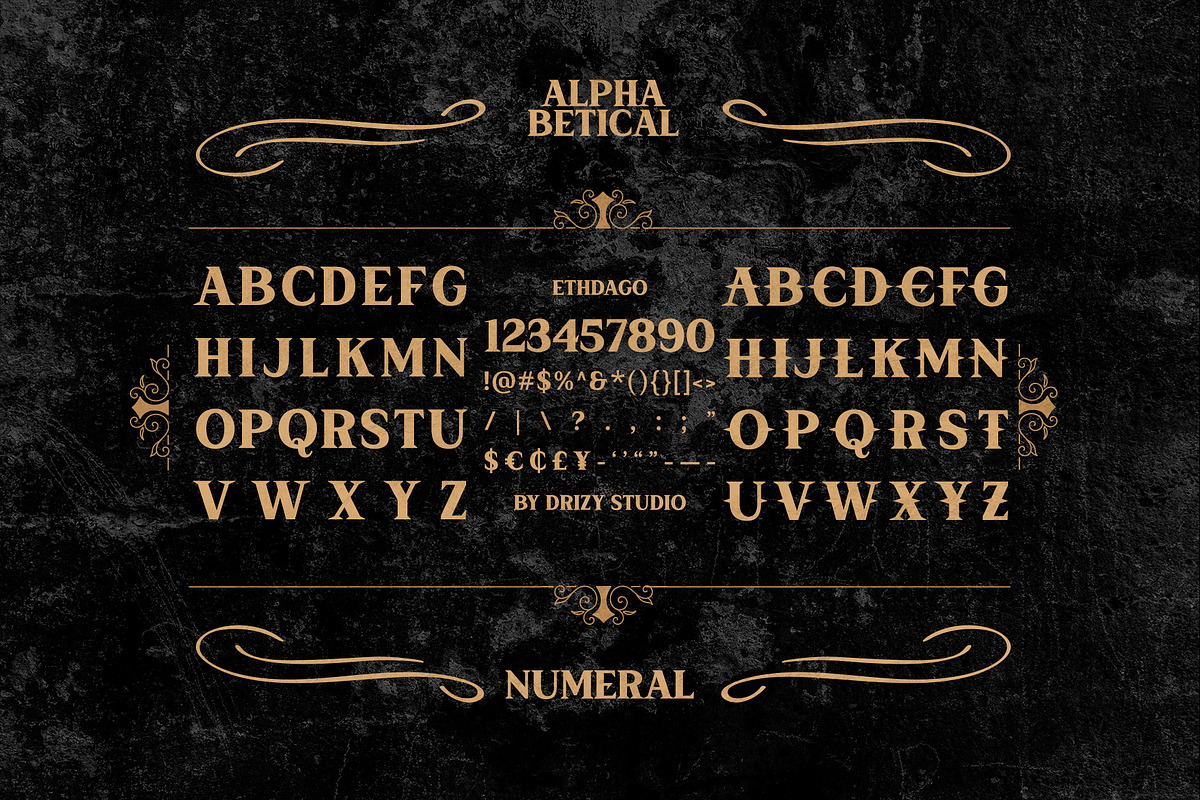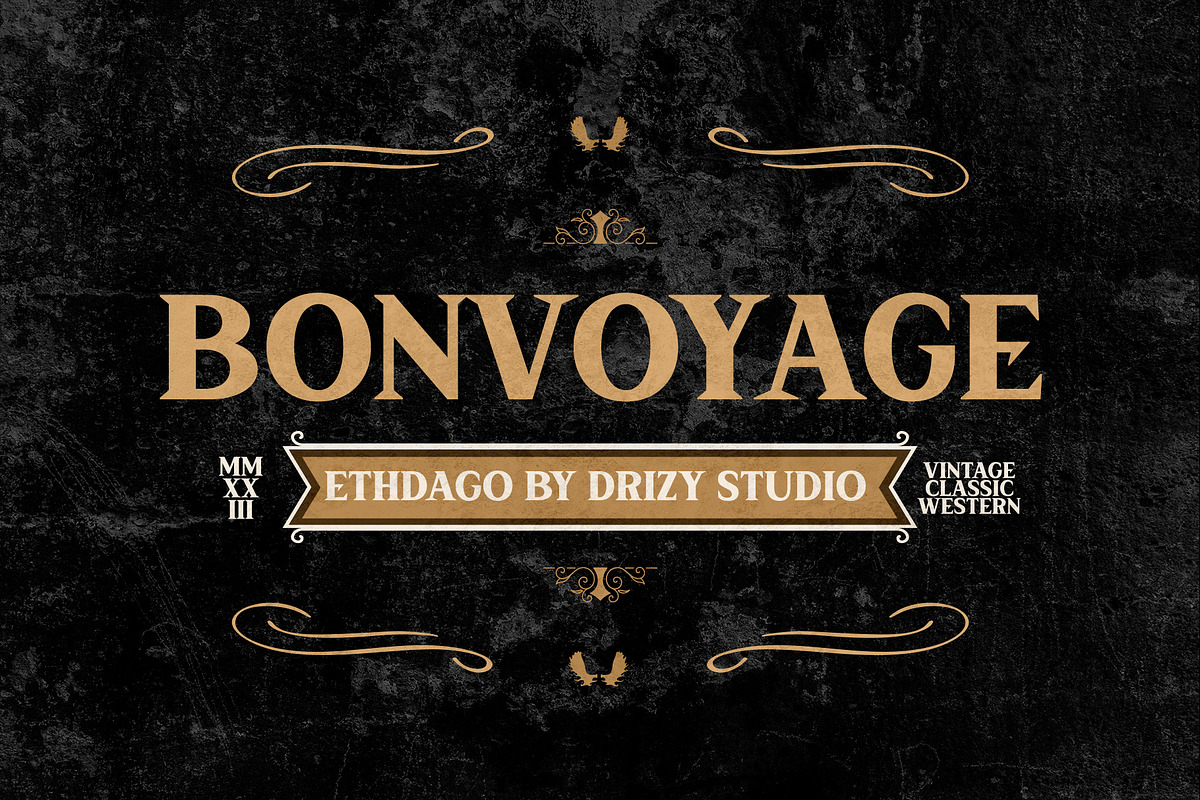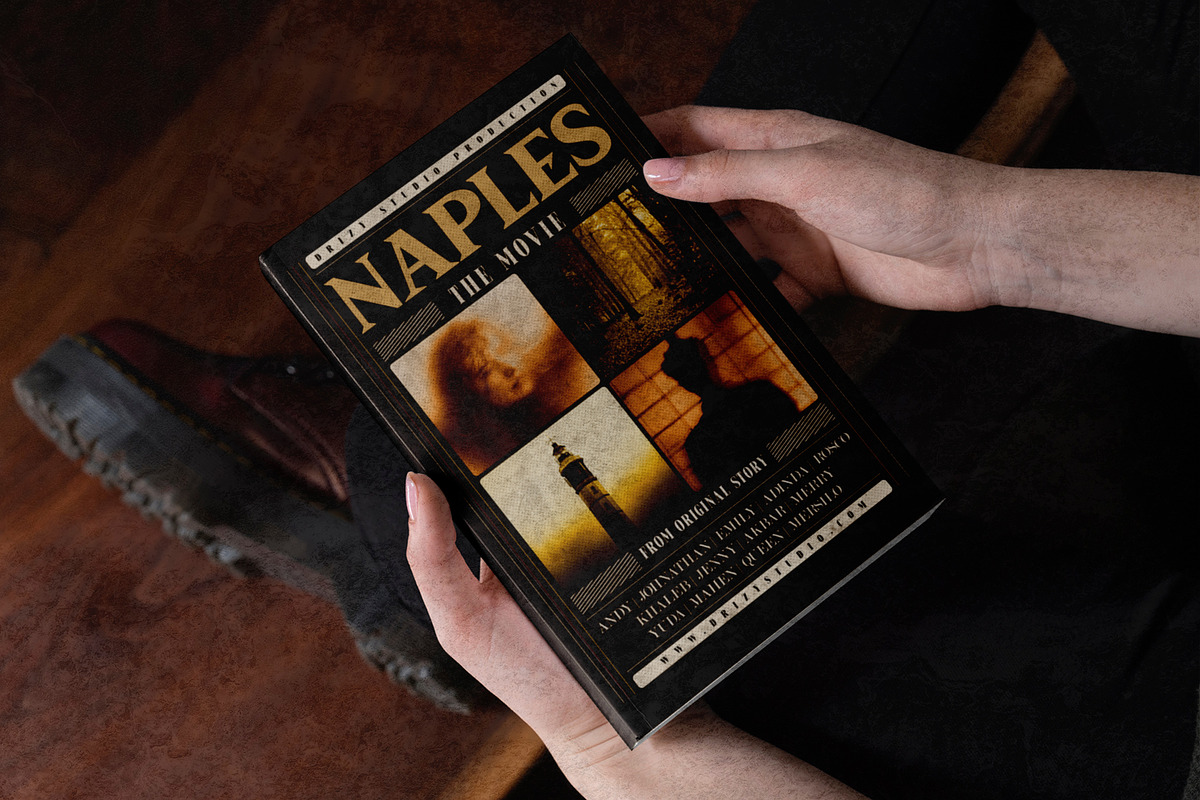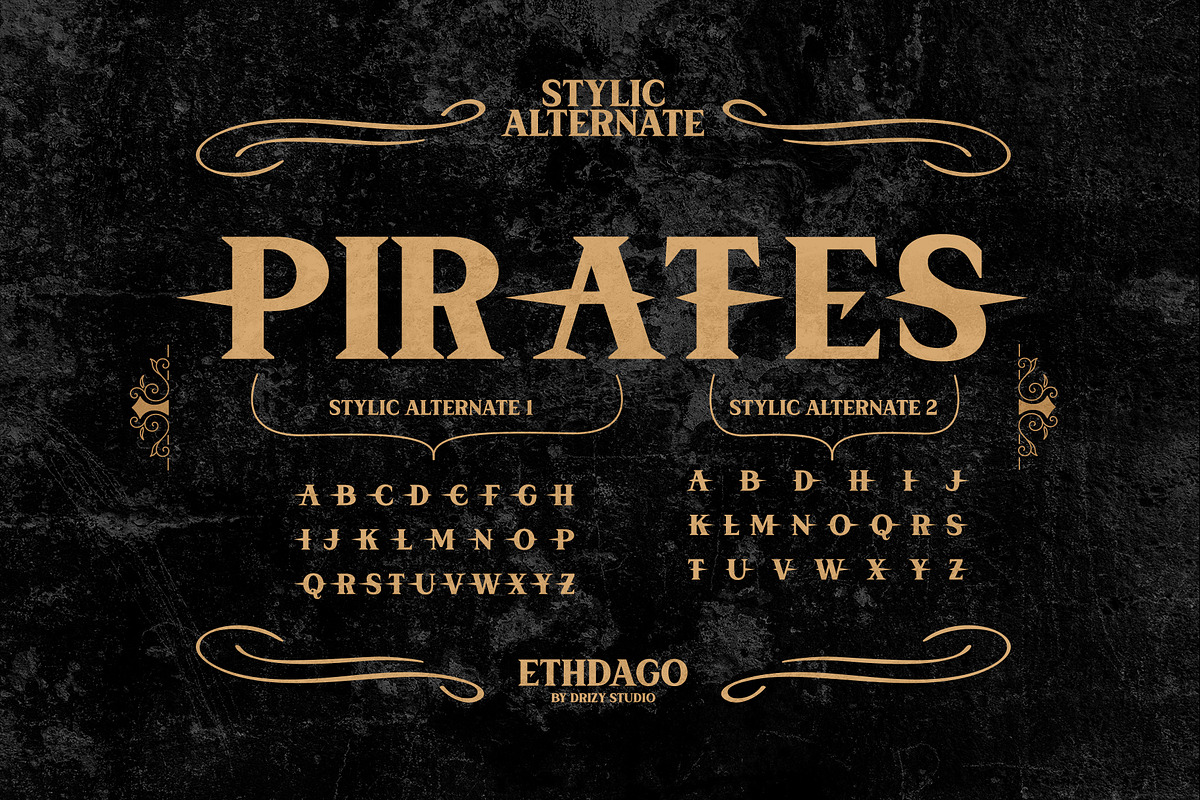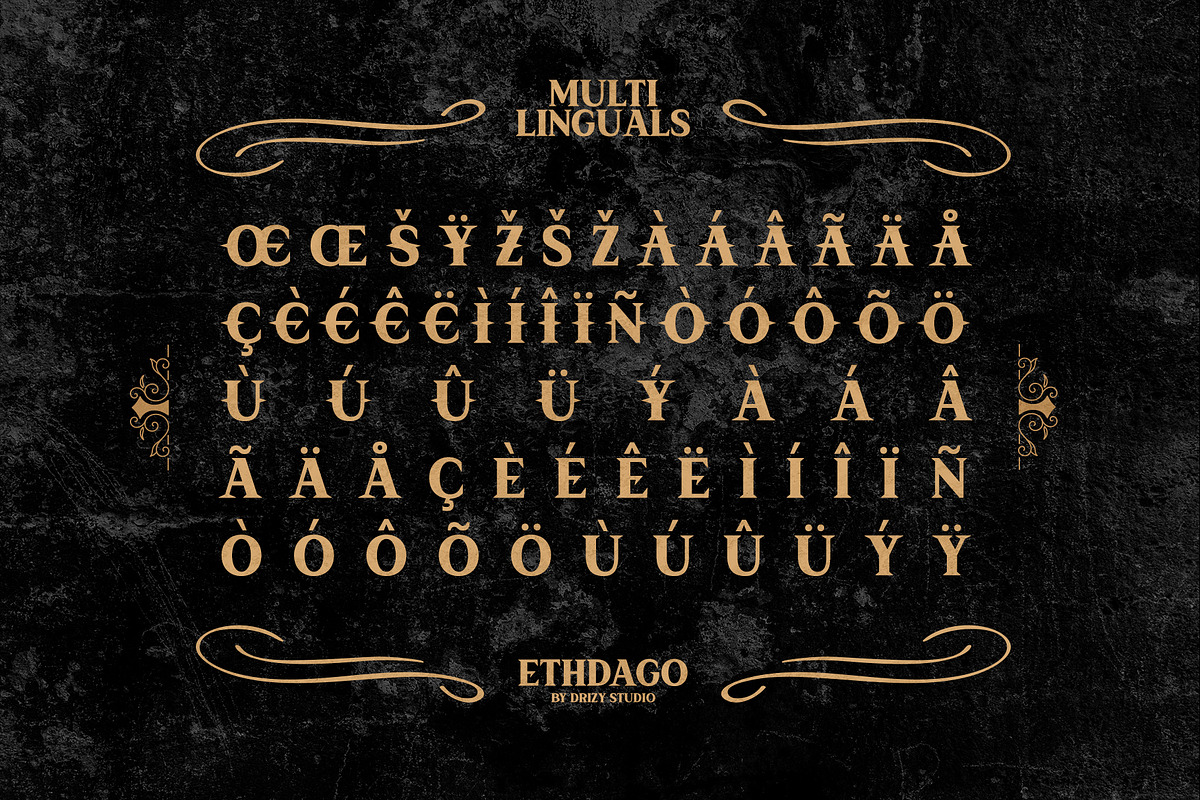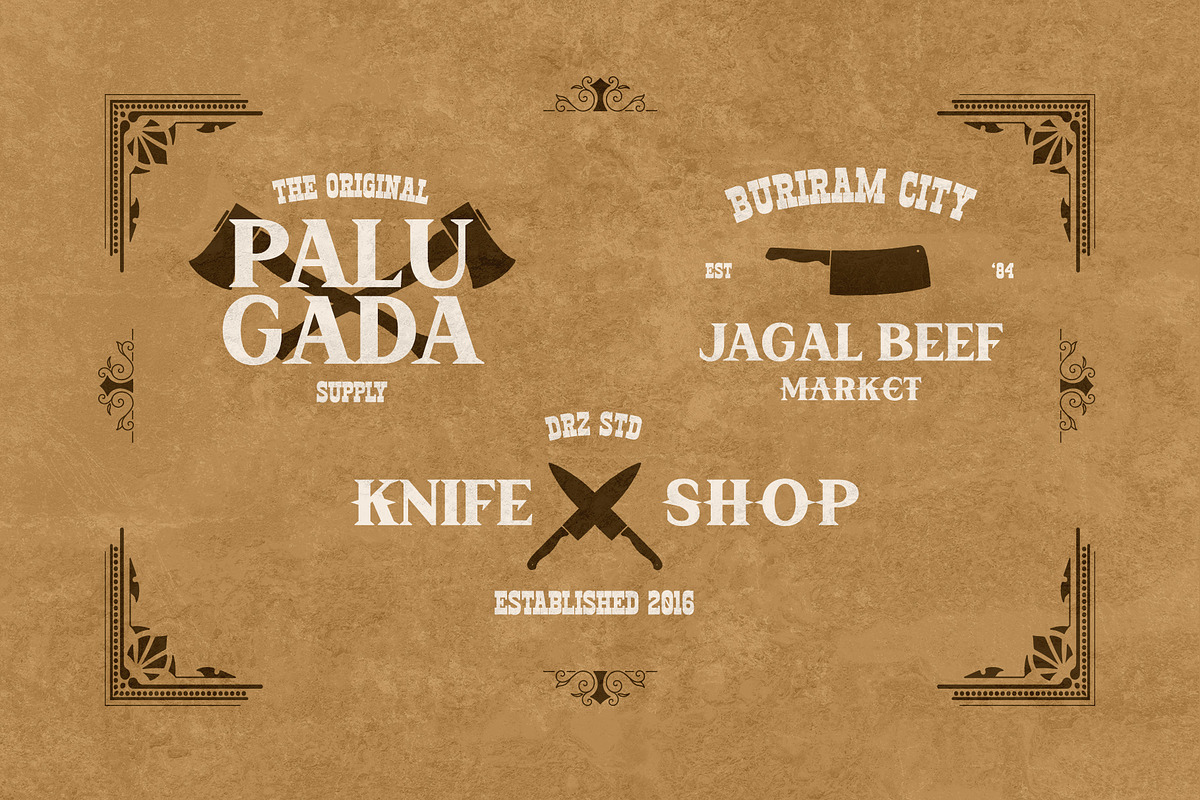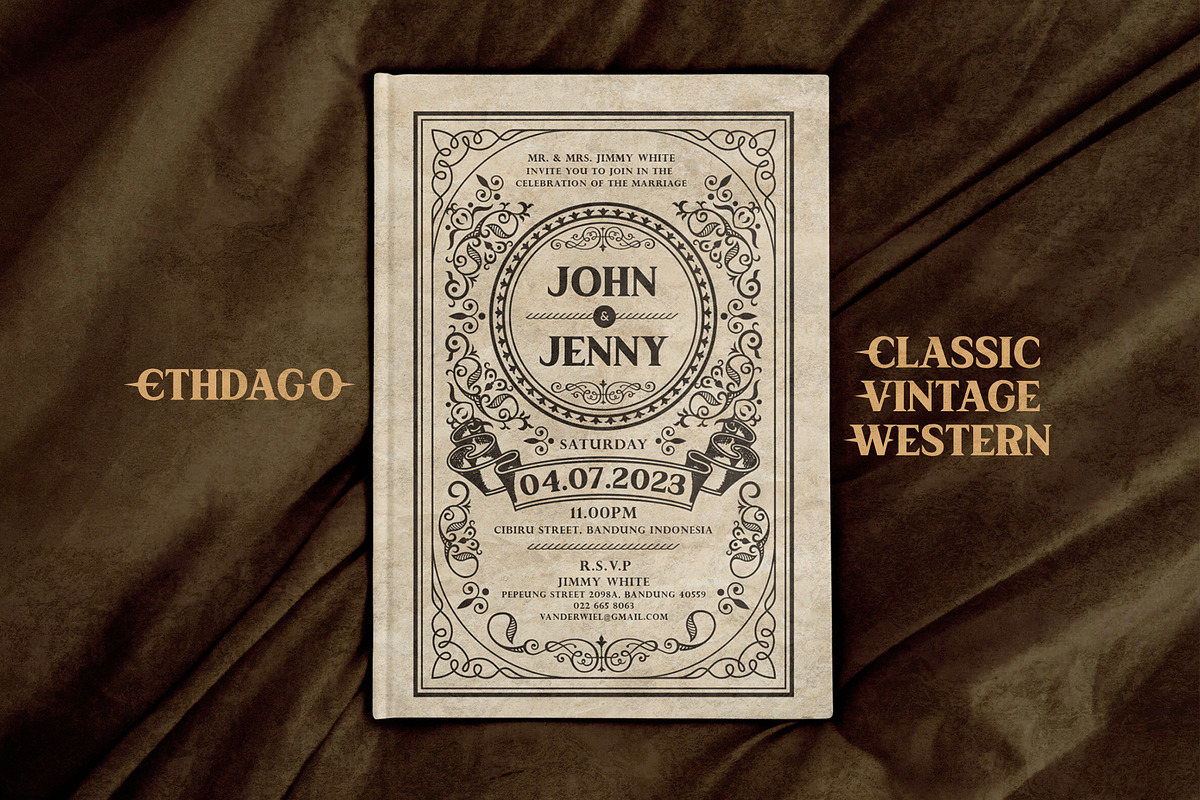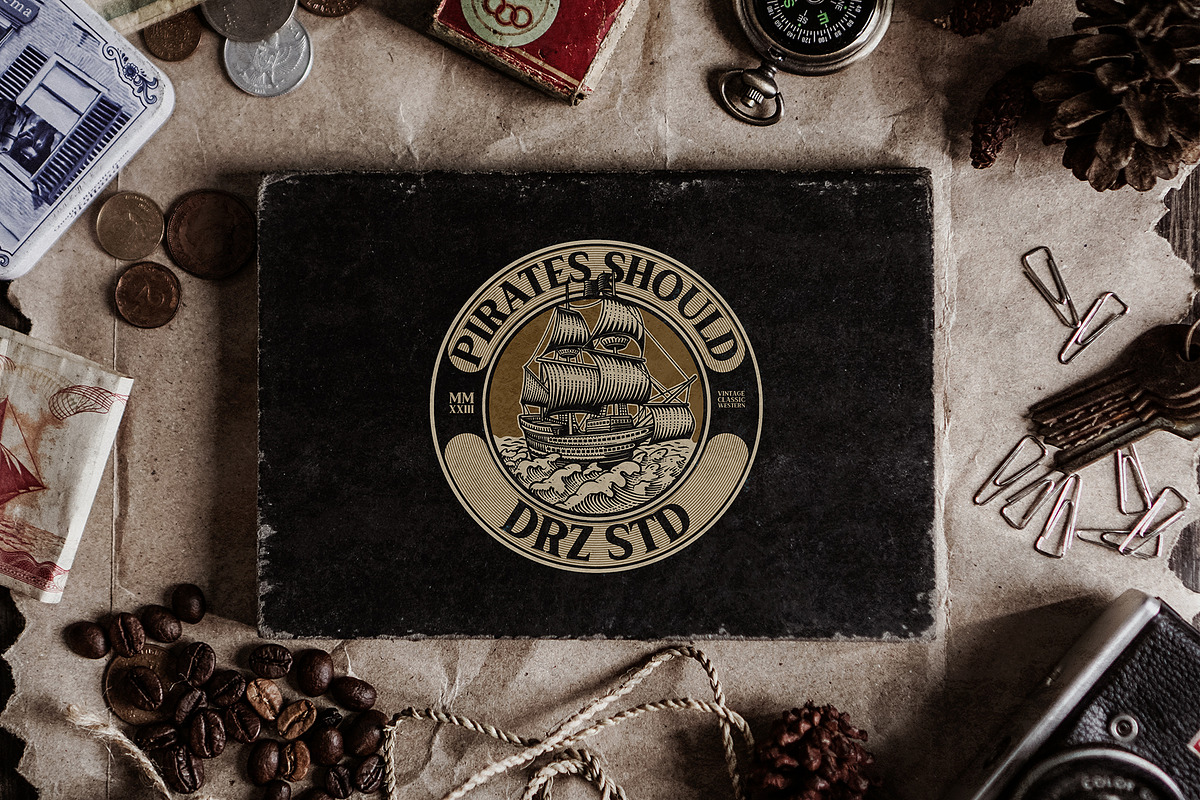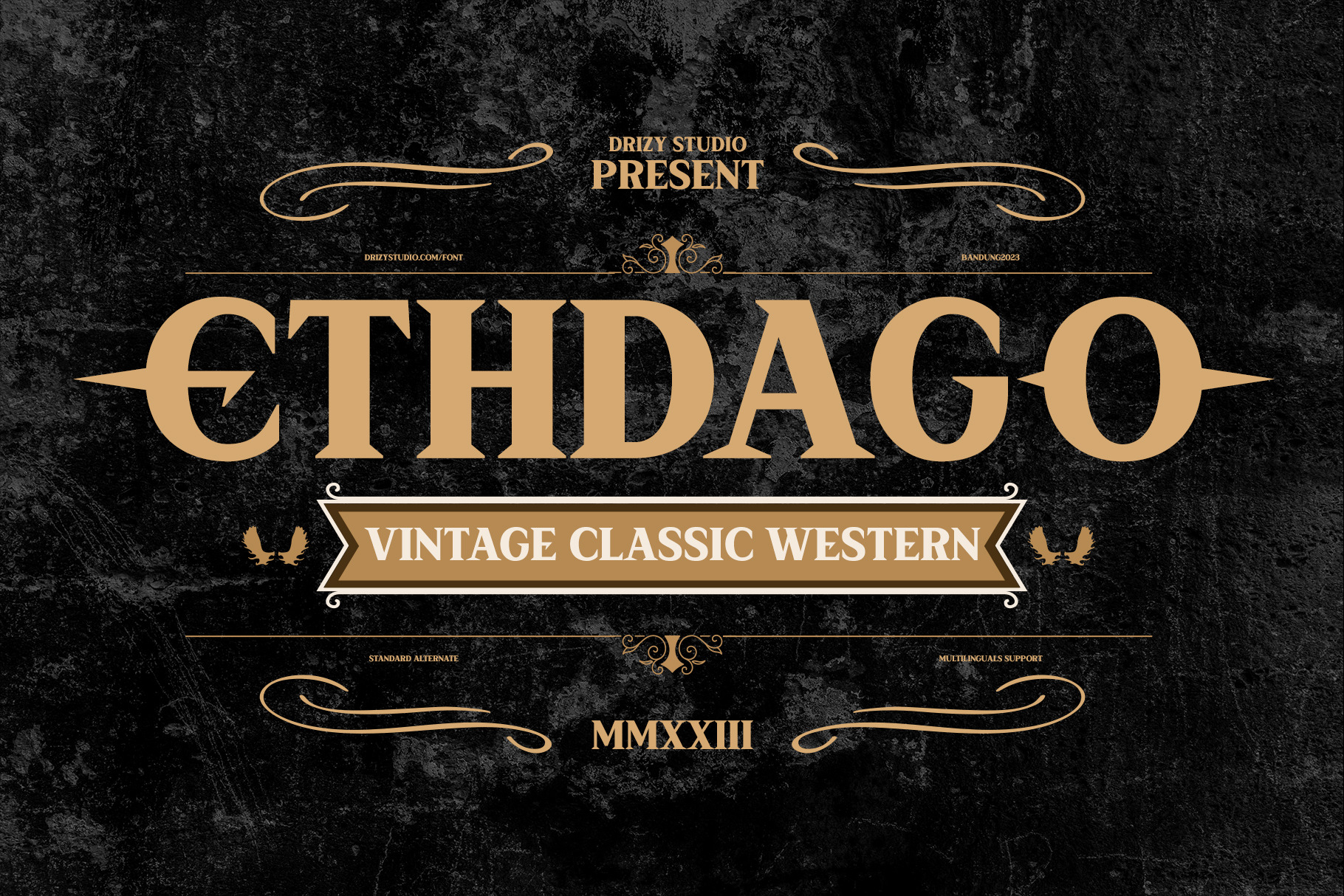
Ethdago - Vintage Classic Font
Ethdago - Vintage Classic Western Font Ethdago is a Vintage Classic Western Font from Drizy Studio. Yeehaw! Saddle up and get ready to add some serious vintage charm to your designs with the one and only Ethdago font! This Western-inspired typeface is the perfect choice for any creative project that needs a touch of ruggedness and adventure, from posters and book cover to logos and branding materials. With its classic and timeless design elements, Ethdago brings the spirit of the Wild West right to your fingertips, making it easy to craft visually-stunning assets that capture the hearts and imaginations of your audience. So why wait? Get ready to lasso in your viewers with the unbeatable charm of Ethdago! Highlander features:
- All Caps
- Punctuation & Numbers
- Alternate & Ligatures